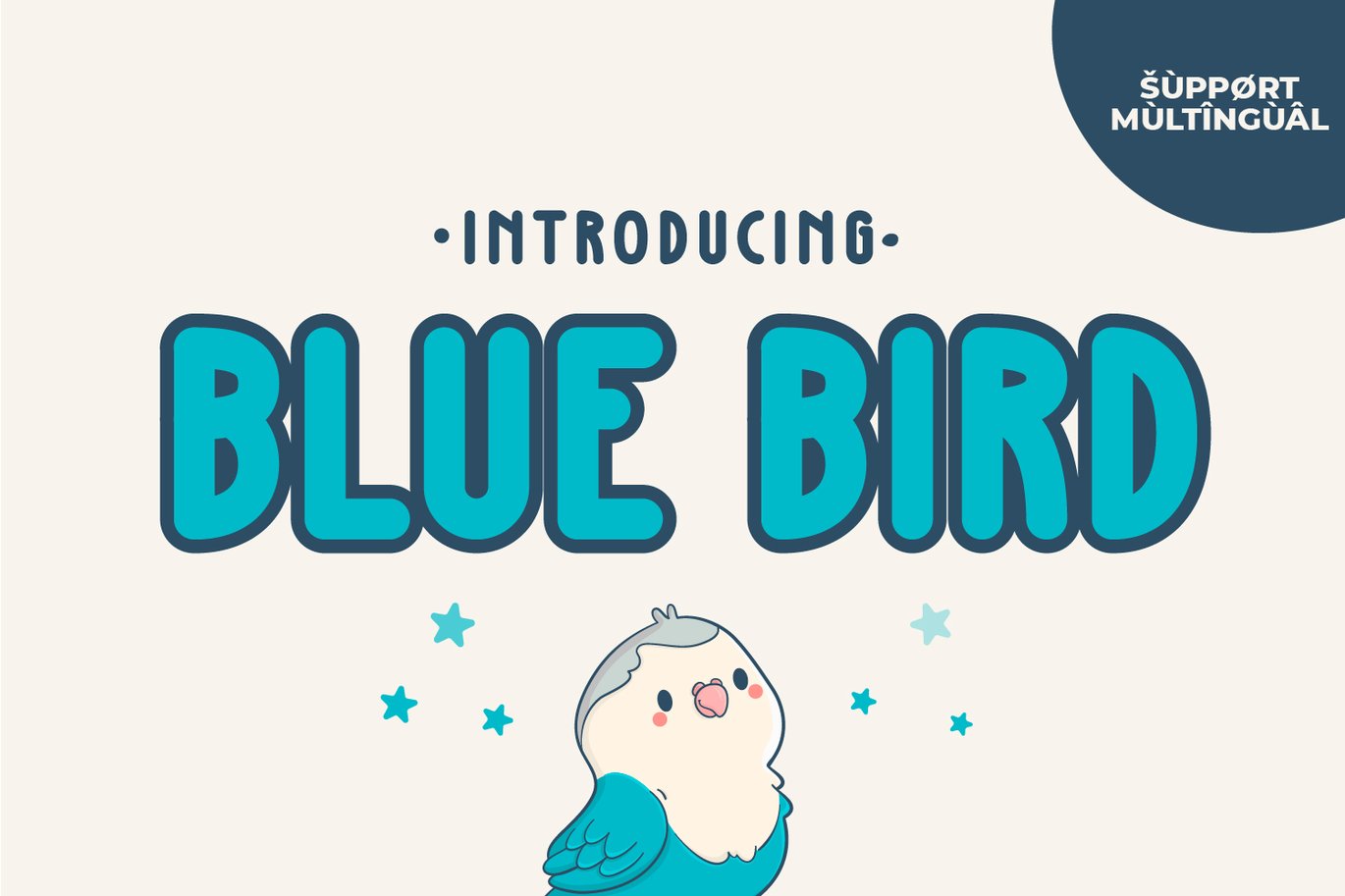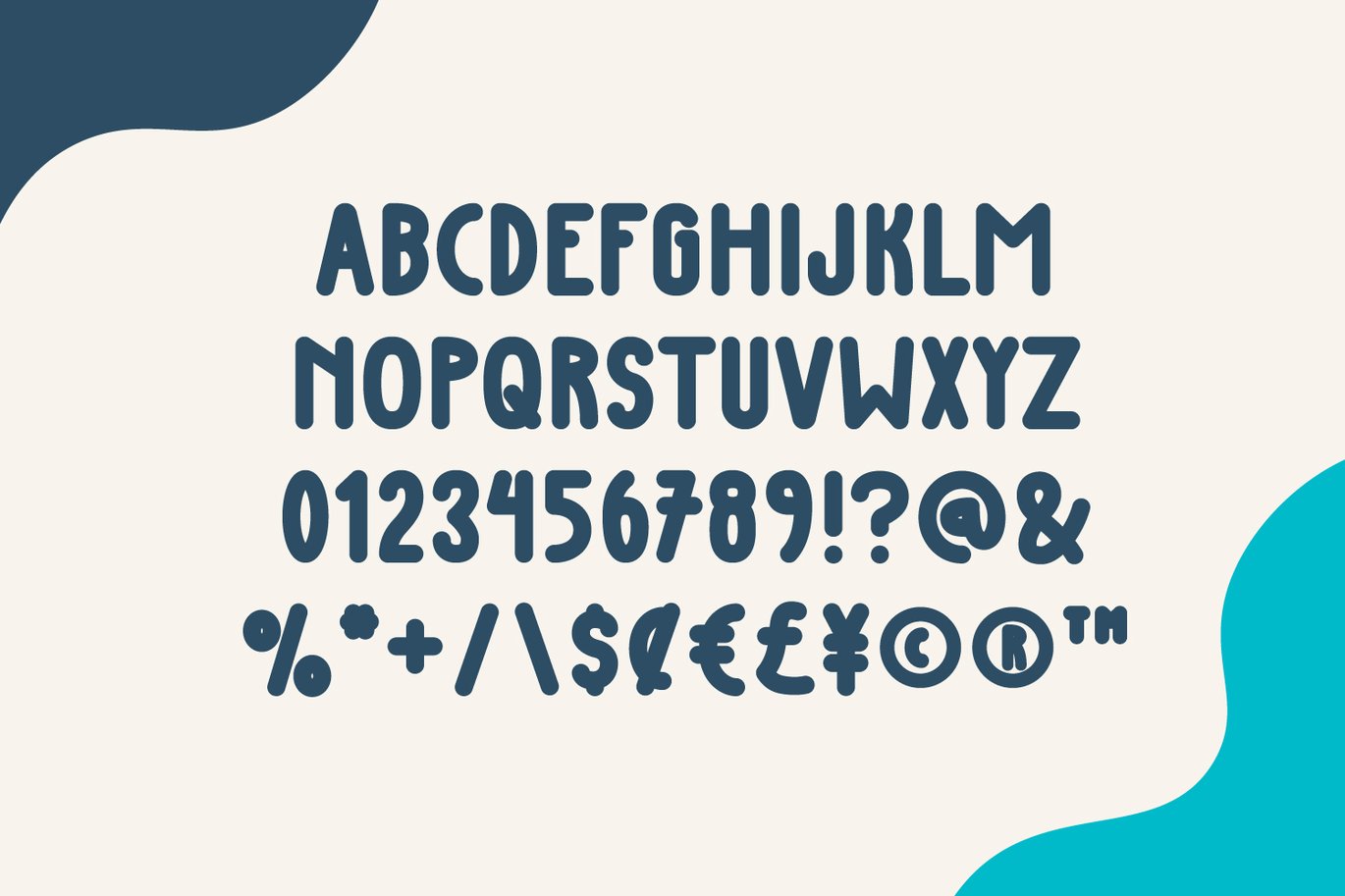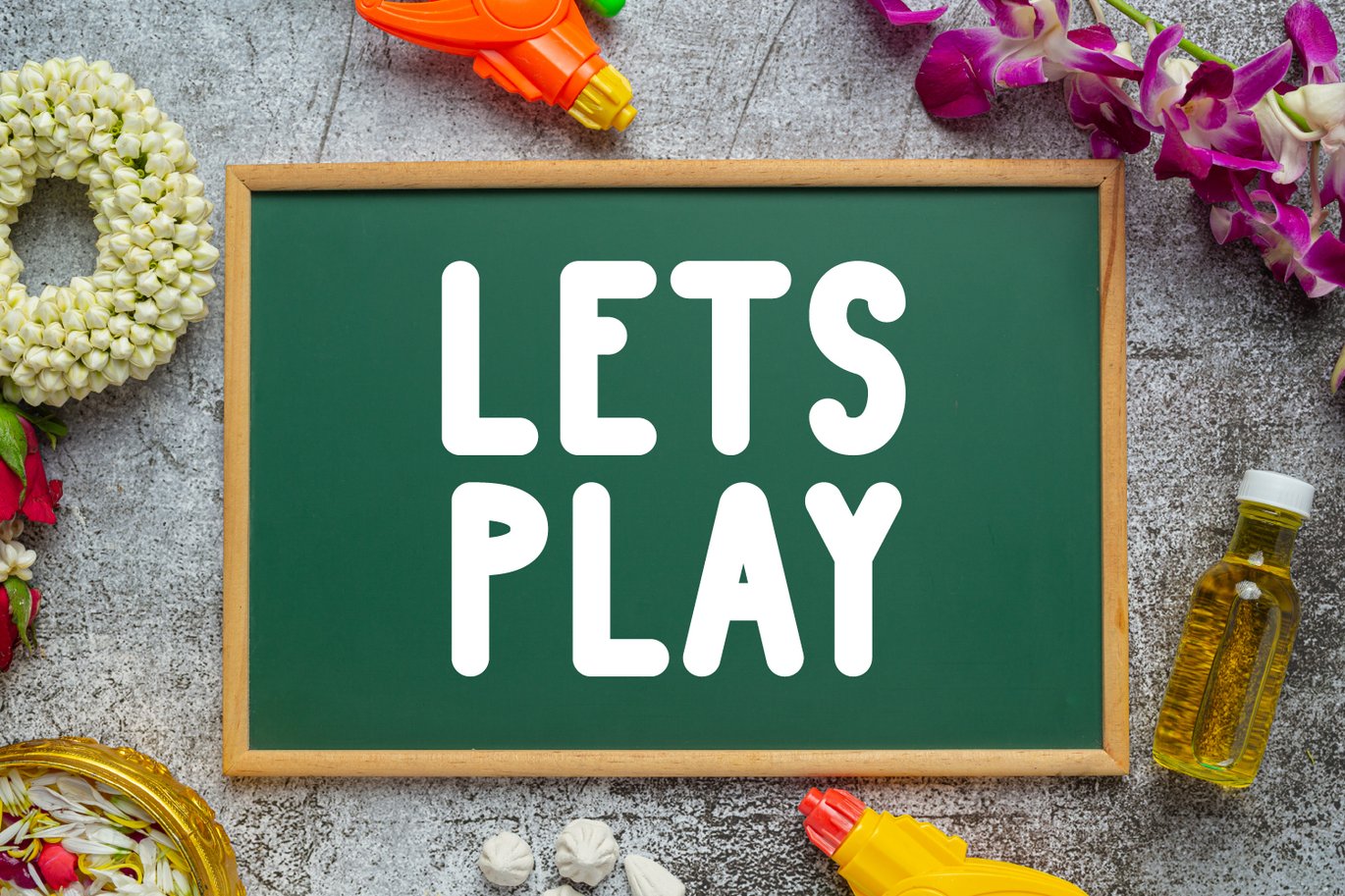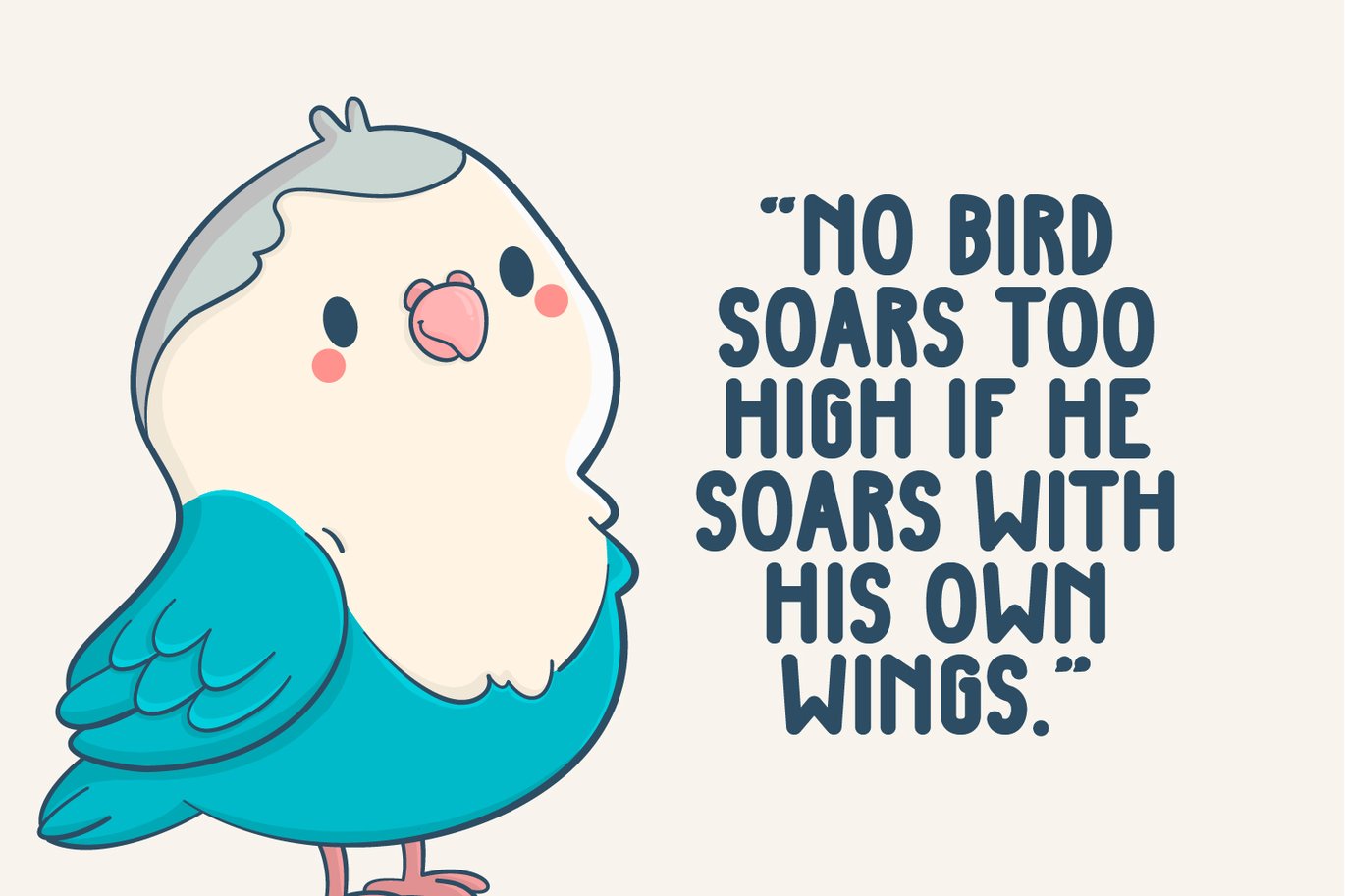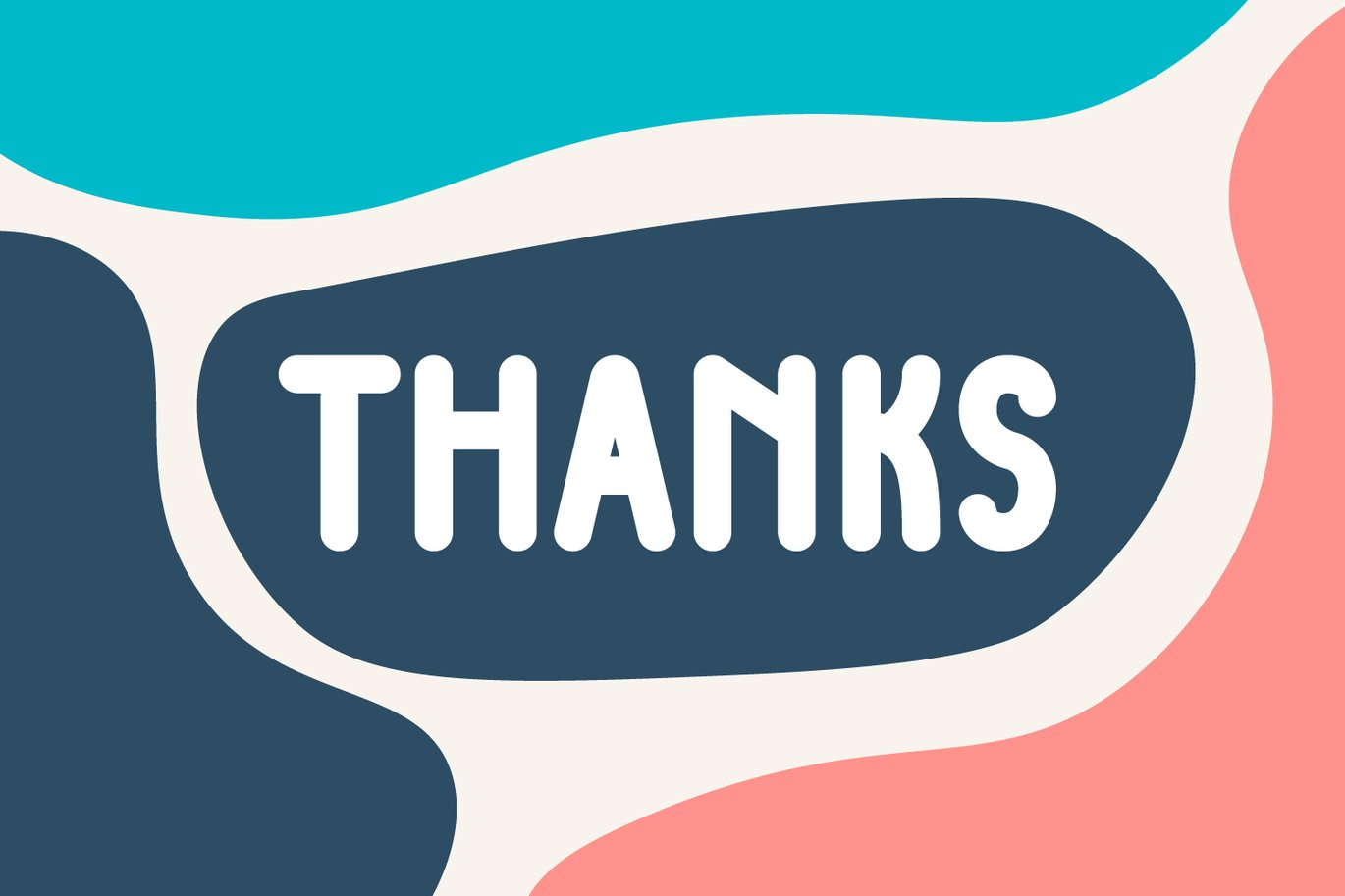
Blue Bird – Cute Handwriting Font
Introducing Blue Bird – Cute Handwriting Font
Blue Bird is a cool and friendly display font. Whimsical and a bit quirky, this font will brighten up each of your designs. Add it confidently to your projects, and you will love the results.